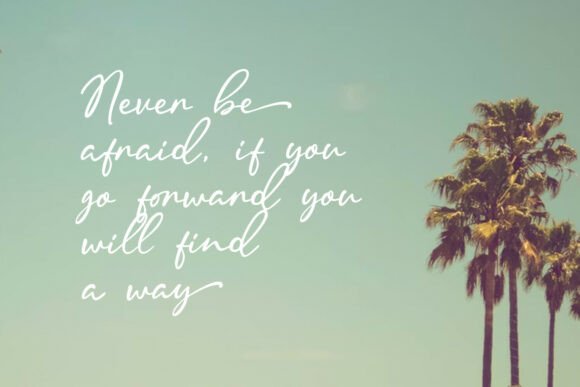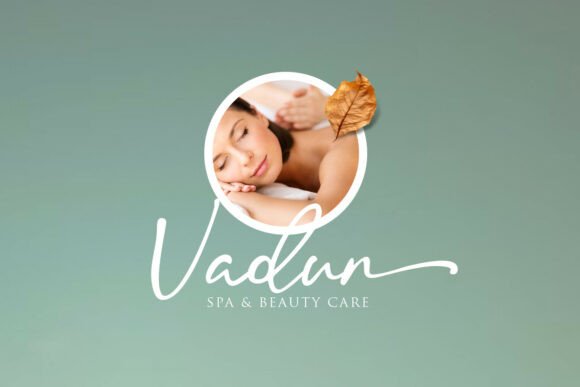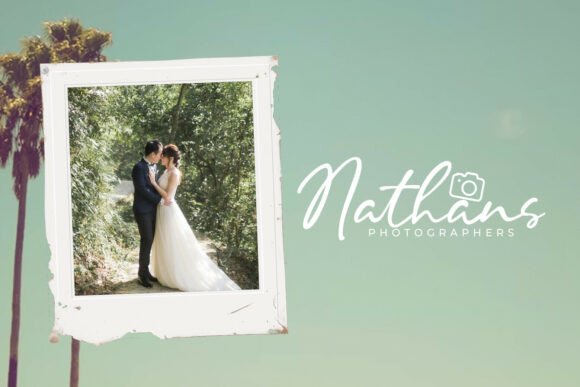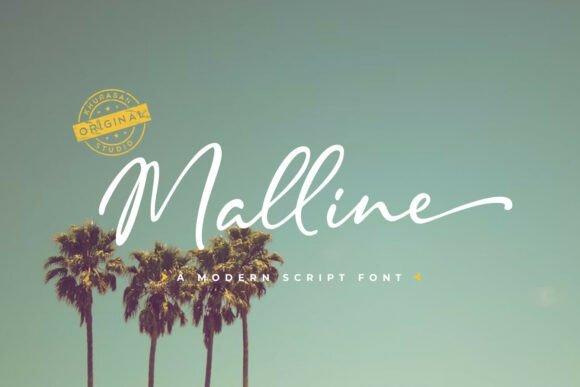
Introduction to Malline Font
Malline is a script handwriting font with a natural pen effect, designed to capture the beauty of real hand-lettering.
Every stroke feels alive — smooth, expressive, and full of personality It delivers an authentic handwritten charm that makes your designs feel warm, stylish, and premium.
Key Features of Malline Font
Malline Font offers exceptional quality and versatility, making it a valuable addition to your design toolkit. Whether you’re creating for personal projects or commercial use, Malline Font delivers professional results.